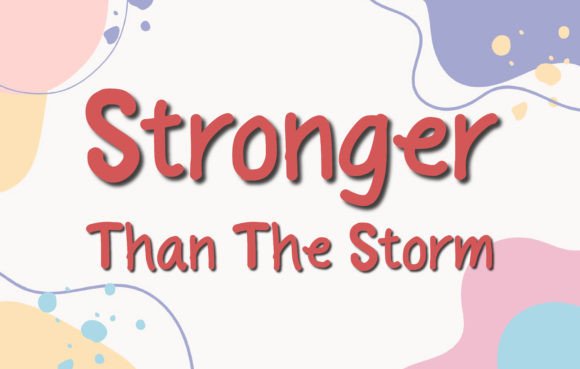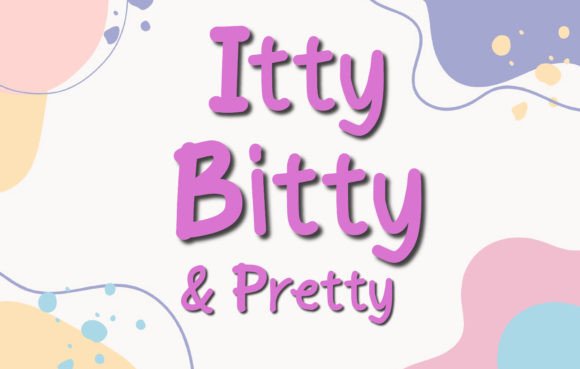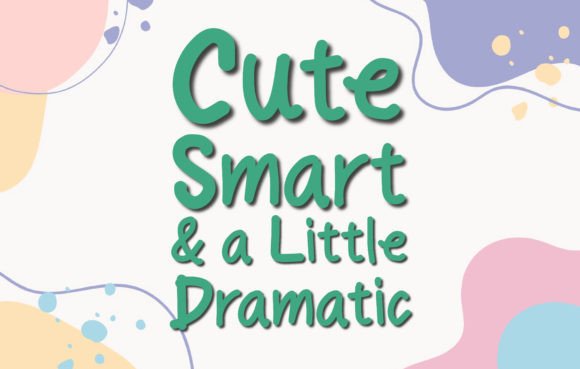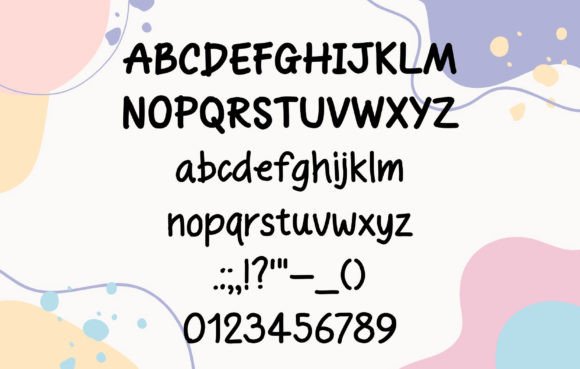
Introducing Alphazy Font: The Perfect Blend of Modernity and Whimsy
In the world of typography, fonts play a crucial role in conveying the tone and personality of a design project. With the numerous options available, it can be challenging to find the perfect font that combines style, versatility, and uniqueness. However, if you’re looking for a typeface that embodies both modernity and whimsical charm, look no further than Alphazy Font. In this article, we’ll explore the features, benefits, and uses of Alphazy Font, and why it’s a must-have for designers and crafters.
The Birth of Alphazy: A Playful Fusion of Style and Charm
Alphazy Font is a carefully crafted typeface that brings together the best of both worlds – contemporary chic and playful whimsy. Its strokes are designed to mimic the authenticity of a hand-drawn touch, giving it a unique and charming personality. With Alphazy, you can add a dash of vivacity to your design projects and elevate their quality, making every creation a standout.
Key Features of Alphazy Font
- Hand-drawn touch: Alphazy’s strokes have a distinctive hand-drawn feel, which adds a touch of warmth and personality to your designs.
- Modernity and joviality: This typeface seamlessly blends modern style with playful charm, making it perfect for a wide range of design projects.
- Versatility: Alphazy Font is a versatile choice that can be used for various design applications, from branding and advertising to packaging and digital media.
- Distinctive style: Alphazy’s unique style sets it apart from other fonts, making it an excellent choice for designers looking to create something truly unique.
Benefits of Using Alphazy Font
So, why choose Alphazy Font for your design projects? Here are just a few benefits of using this charming typeface:
- Adds personality to your designs: Alphazy Font’s unique style and hand-drawn touch add a touch of personality to your designs, making them more engaging and memorable.
- Elevates quality: With Alphazy, you can elevate the quality of your design projects and create something truly special.
- Versatile and adaptable: This typeface can be used for a wide range of design applications, from print to digital media.
- Easy to read: Despite its playful nature, Alphazy Font is easy to read, making it perfect for body text and headlines.
Uses of Alphazy Font
Alphazy Font is a versatile typeface that can be used for various design applications, including:
- Branding and advertising: Use Alphazy Font to create eye-catching logos, posters, and advertisements that grab attention.
- Packaging design: Add a touch of whimsy to your packaging designs with Alphazy Font, making your products stand out on store shelves.
- Digital media: Use Alphazy Font for social media graphics, blog posts, and website designs to add a touch of personality and style.
- Crafting and DIY projects: Alphazy Font is perfect for crafters and DIY enthusiasts who want to add a personal touch to their projects, such as handmade cards, invitations, and scrapbooking.
In conclusion, Alphazy Font is a unique and versatile typeface that combines modernity and whimsical charm. With its hand-drawn touch, distinctive style, and ease of use, Alphazy is perfect for designers and crafters looking to add a dash of vivacity to their design projects. Whether you’re working on branding and advertising, packaging design, digital media, or crafting and DIY projects, Alphazy Font is sure to elevate the quality of your creations and make them stand out.